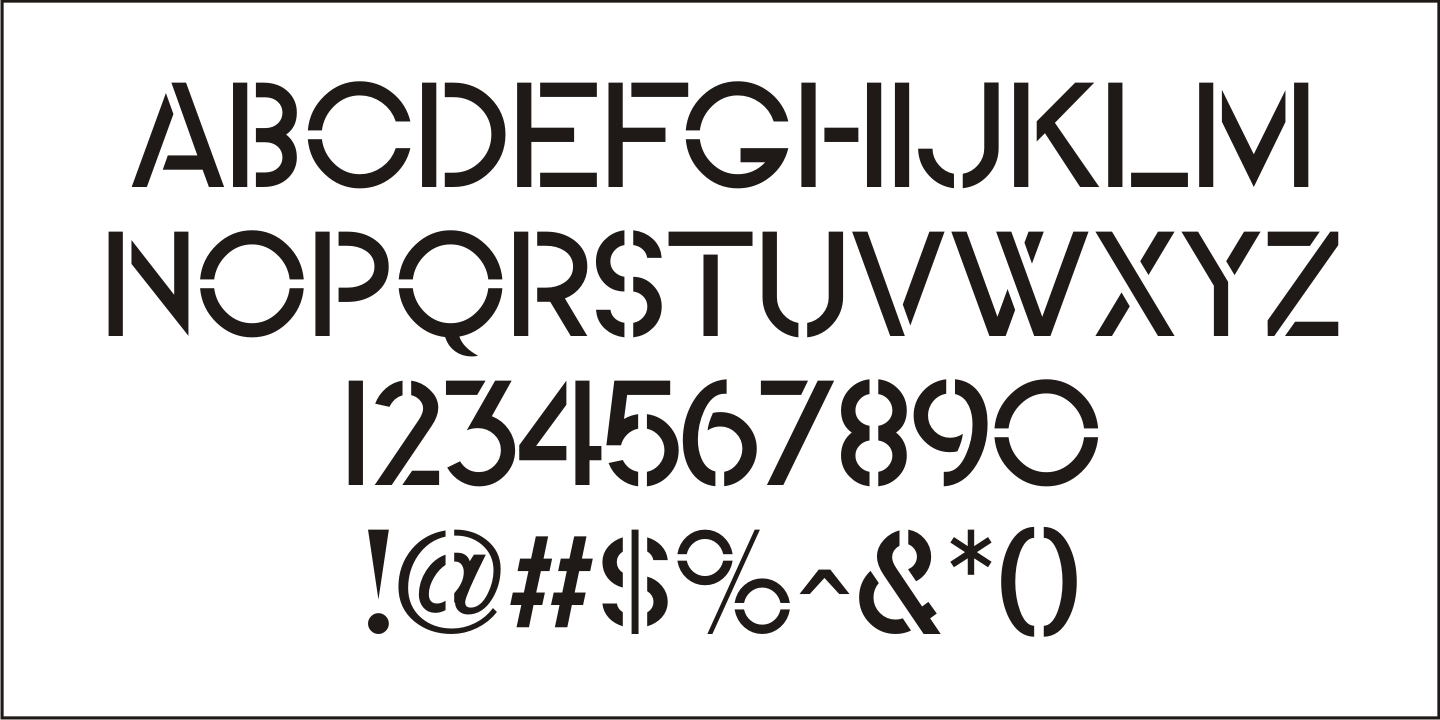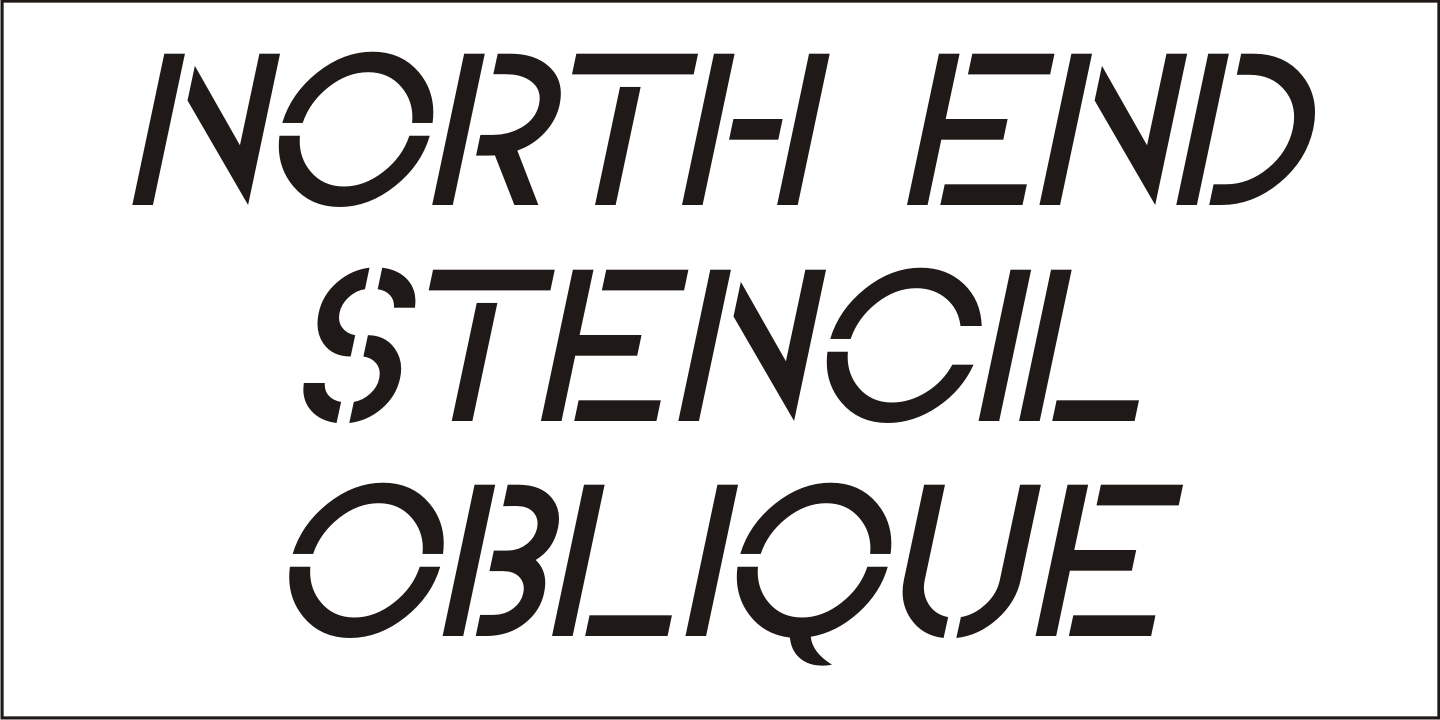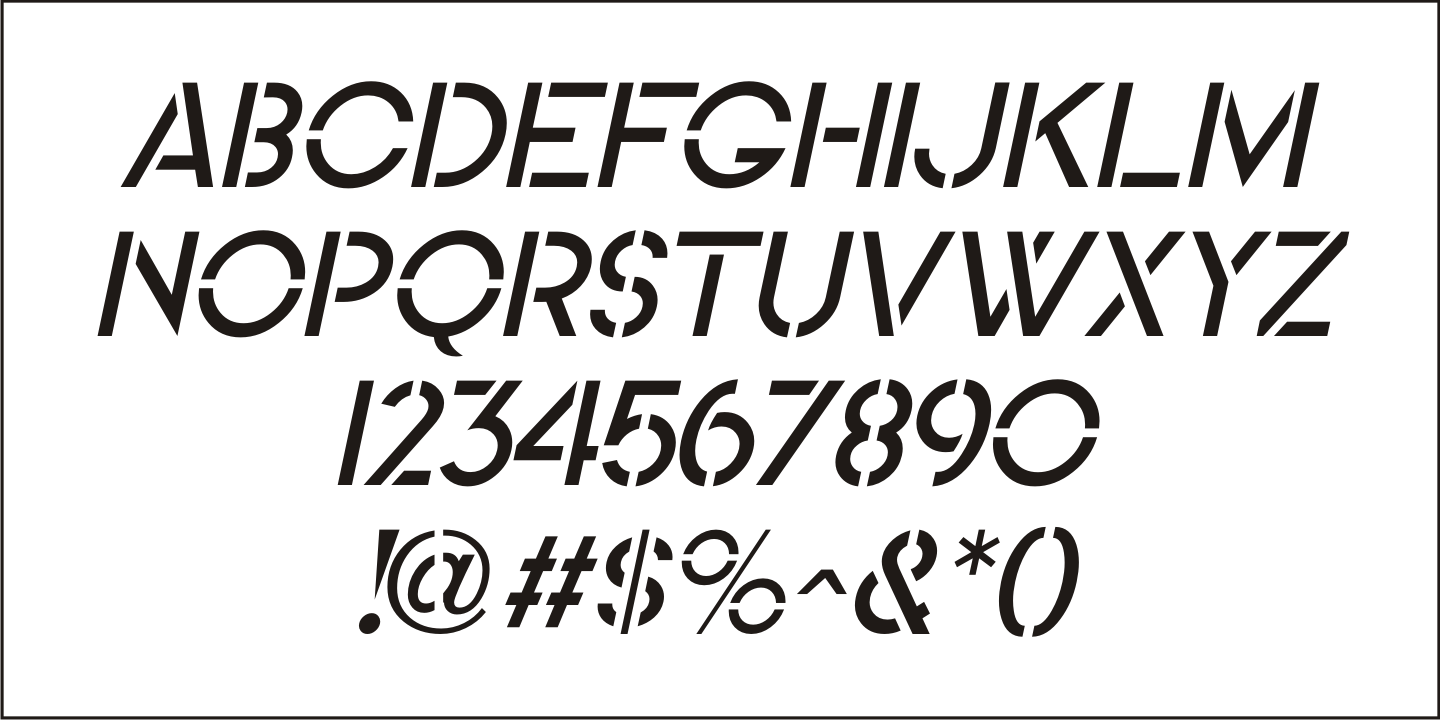
North End Stencil
An image of a vintage British lettering stencil set [probably circa 1960s] spotted in an online auction inspired North End Stencil JNL.
The original lettering was a hybrid of both stencil and solid letter forms, but for the digital version all of the characters were given the stencil treatment.
North End Stencil JNL is named after a district in London, and the type face is available in both regular and oblique versions.